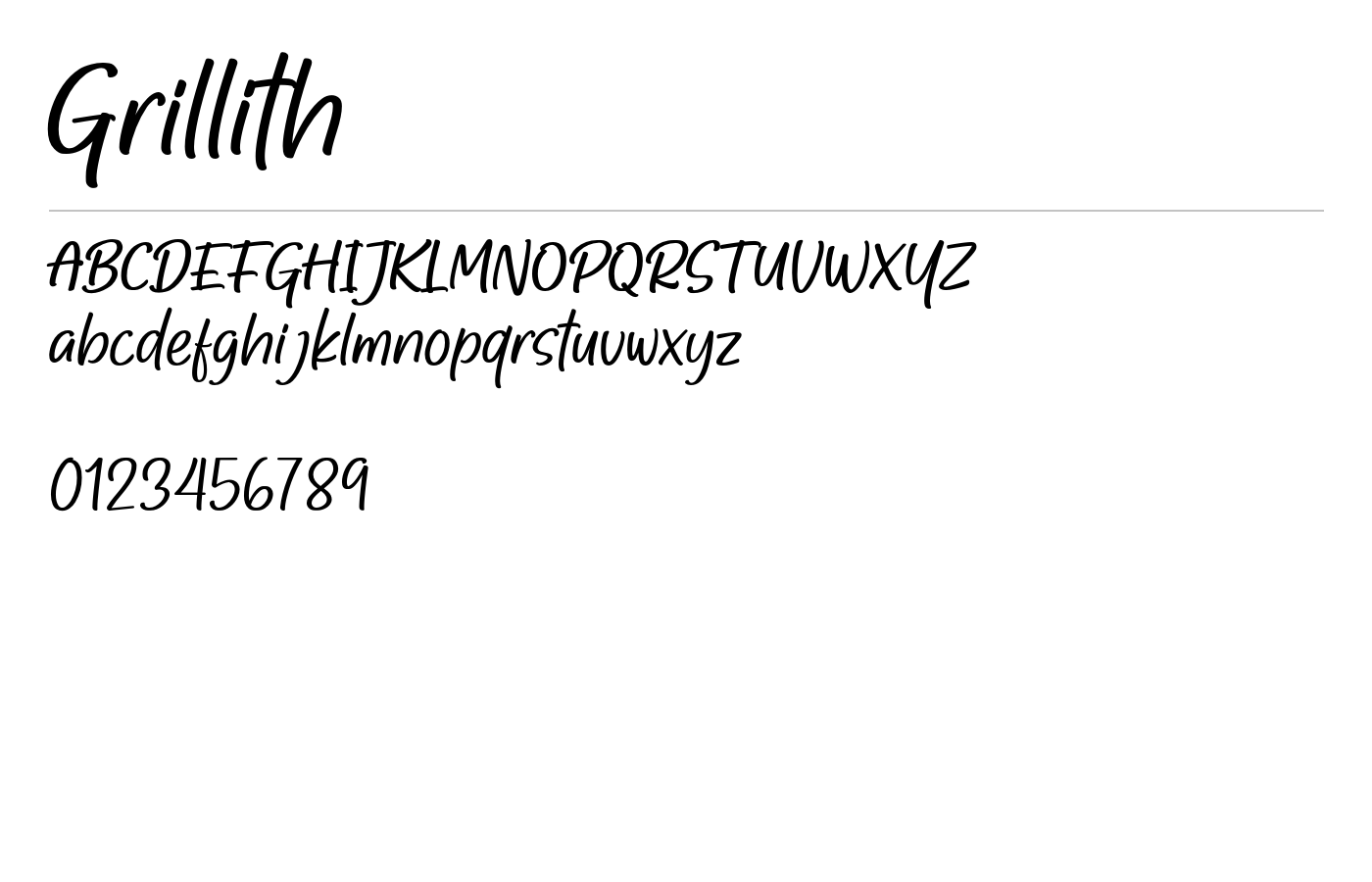
Grillith is a lively handwritten script font with a casual and energetic feel, featuring smooth, slightly irregular strokes that mimic natural penmanship. Its medium weight and upright slant make it highly readable while conveying a friendly and approachable personality, perfect for creative branding, invitations, and informal editorial designs. The font's playful charm and clear letterforms also suit logos and social media graphics where a personal touch is desired.
Grillith Font
About Grillith Font
| Font family | Grillith Font |